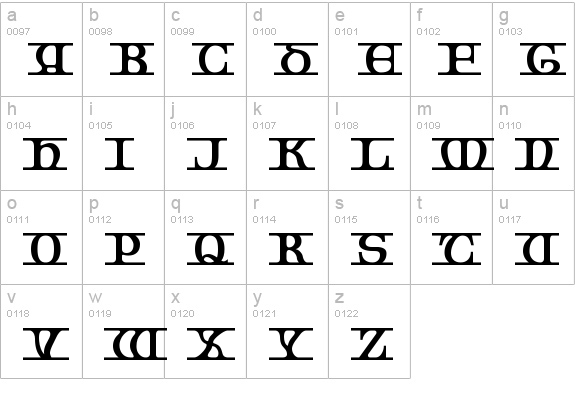
Trudeau Font Details
Trudeau font is a modern and sleek typeface that exudes elegance and sophistication. With its clean lines and stylish curves, Trudeau font is perfect for a wide range of design projects, from branding to editorial design. The font's versatility makes it suitable for both headers and body text, adding a touch of refinement to any project. Best of all, Trudeau font is available for free download at FontsMarket.com. This means you can easily access this stunning font and incorporate it into your designs without any cost. Don't miss out on the opportunity to enhance your projects with the timeless beauty of Trudeau font, available for free at FontsMarket.com.